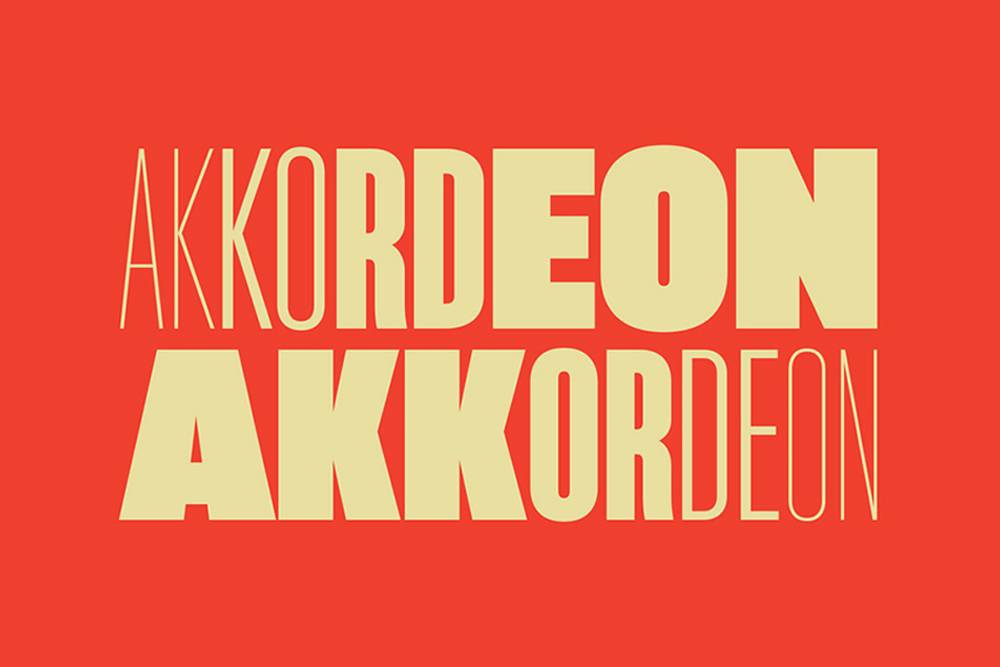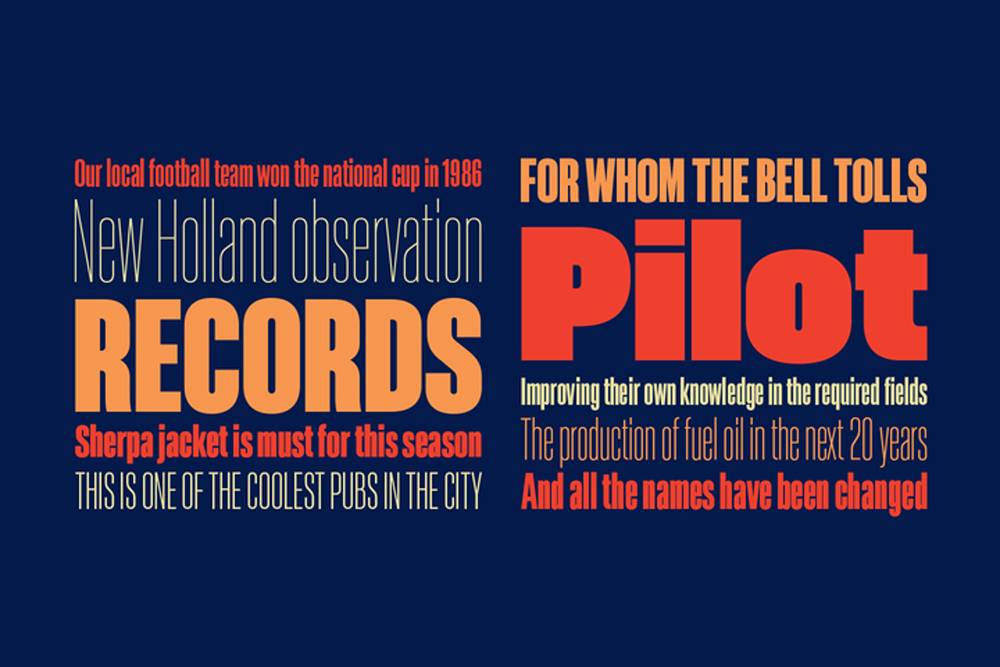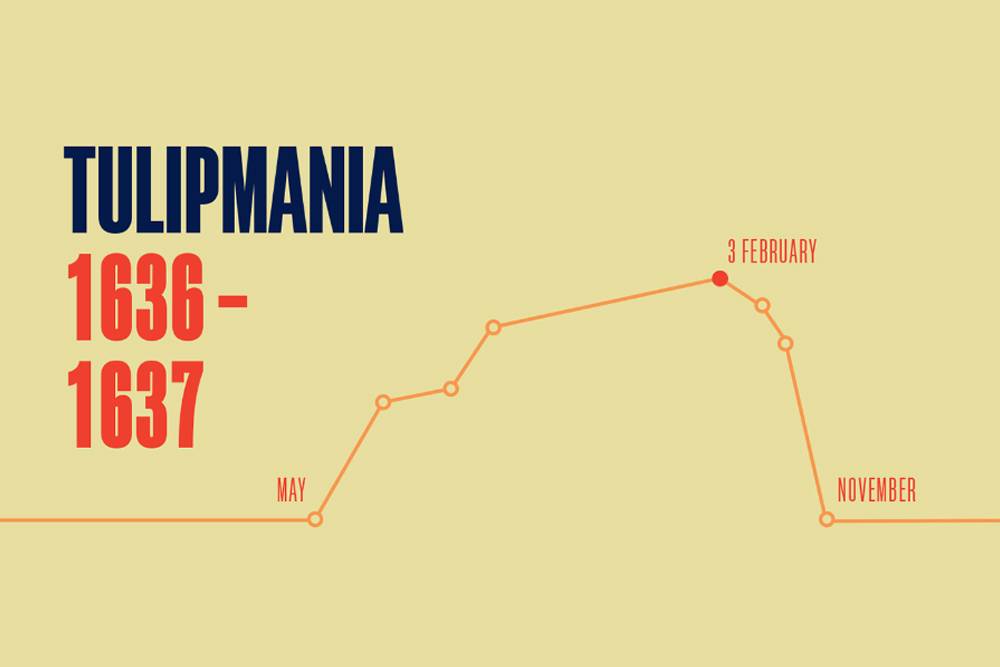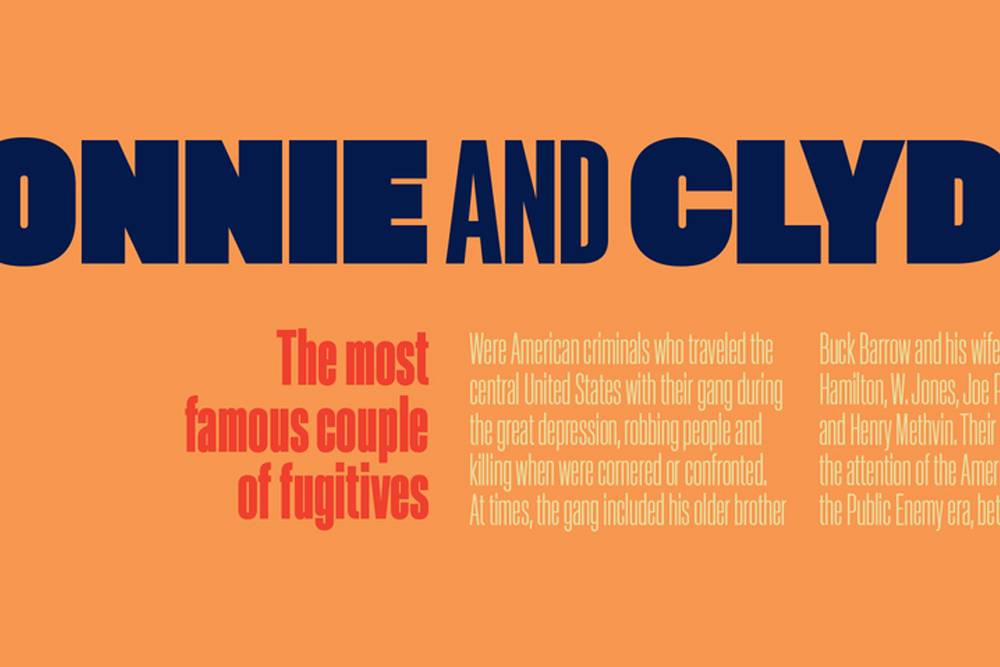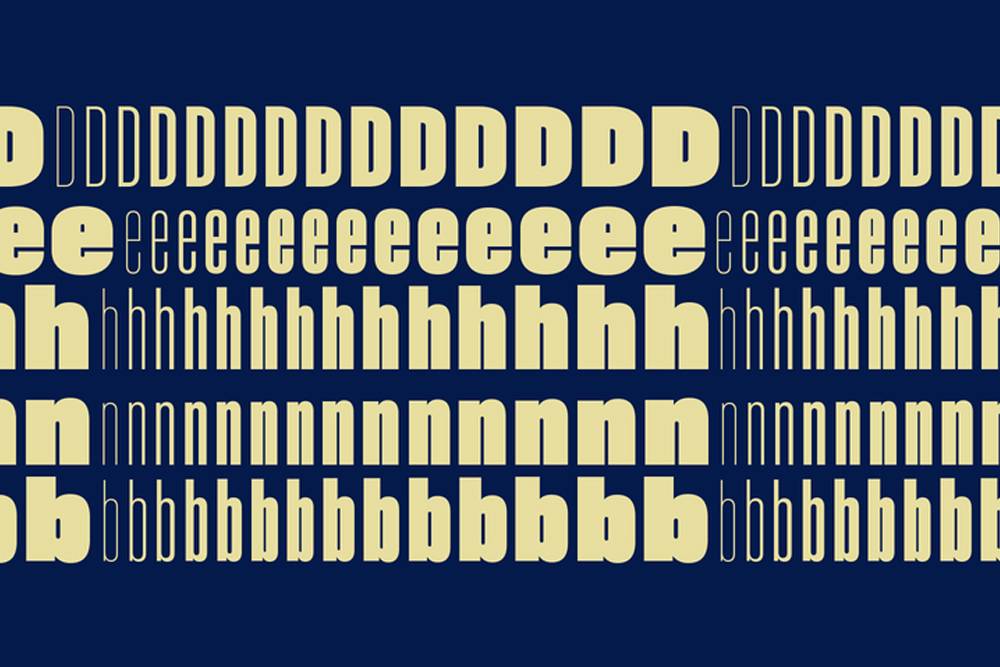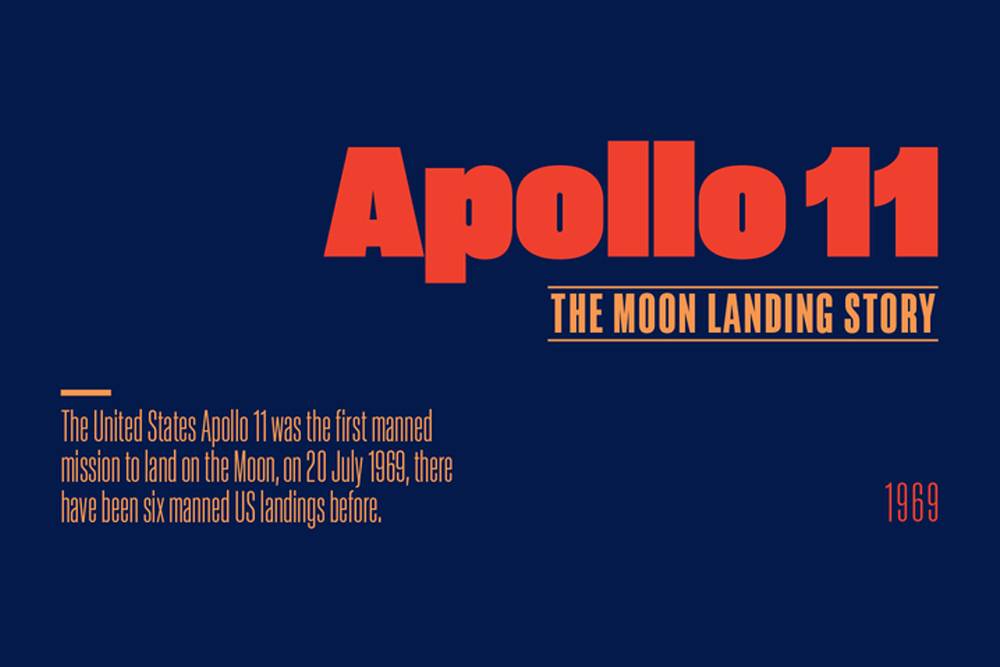
Akkordeon is a bold, condensed sans serif font with a strong vertical emphasis and uniform stroke weight, giving it a striking, modern look. Its tall, narrow letterforms make it ideal for impactful headlines, logos, and branding where space is limited but attention is needed. This font exudes confidence and clarity, perfect for contemporary designs seeking a powerful, urban edge.